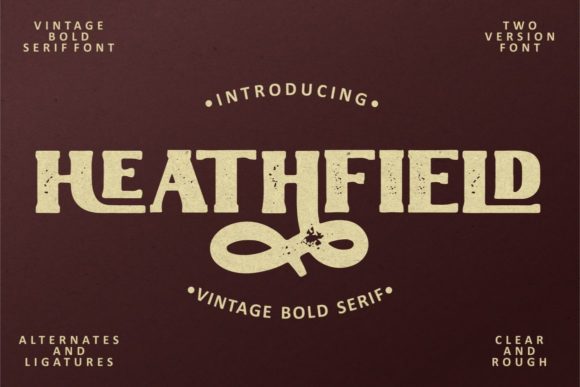
Step into a realm of digital elegance with Heathfield Font, the epitome of modern sophistication for your resume.
Crafted by the masterminds at putracetol, Heathfield is a striking serif font that exudes confidence and professionalism. Its bold and thick letters command attention, making your resume an instant standout.
But Heathfield is more than just a pretty face. It's a font that speaks volumes about your dedication, attention to detail, and unwavering determination. Its crisp lines and sharp angles convey a sense of order and precision, while its subtle curves hint at a touch of creativity.
With Heathfield as your digital companion, you'll leave a lasting impression on potential employers. They'll see a resume that not only showcases your skills and experience but also reflects your impeccable taste and desire to succeed.
Heathfield is more than a font; it's an investment in your professional future. It's a font that will help you land that dream job and embark on a path to career success.
So why settle for ordinary fonts when you can have extraordinary? Unleash the power of Heathfield Font today and let your resume shine brighter than ever before.
With Heathfield Font, you'll:
* Stand out from the competition with a bold and unique resume
* Convey confidence, professionalism, and attention to detail
* Impress potential employers with your impeccable taste
* Invest in your professional future and open doors to success